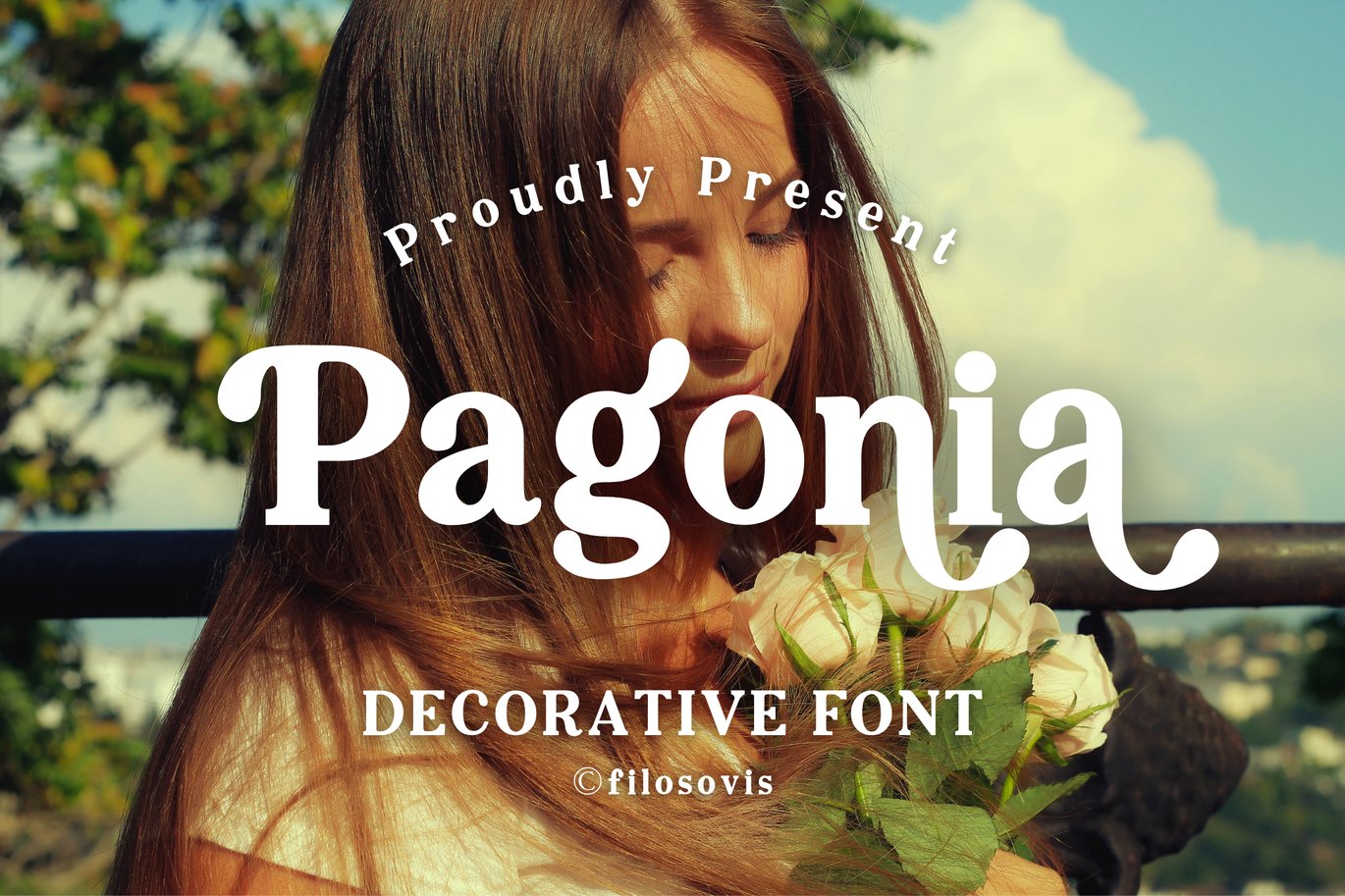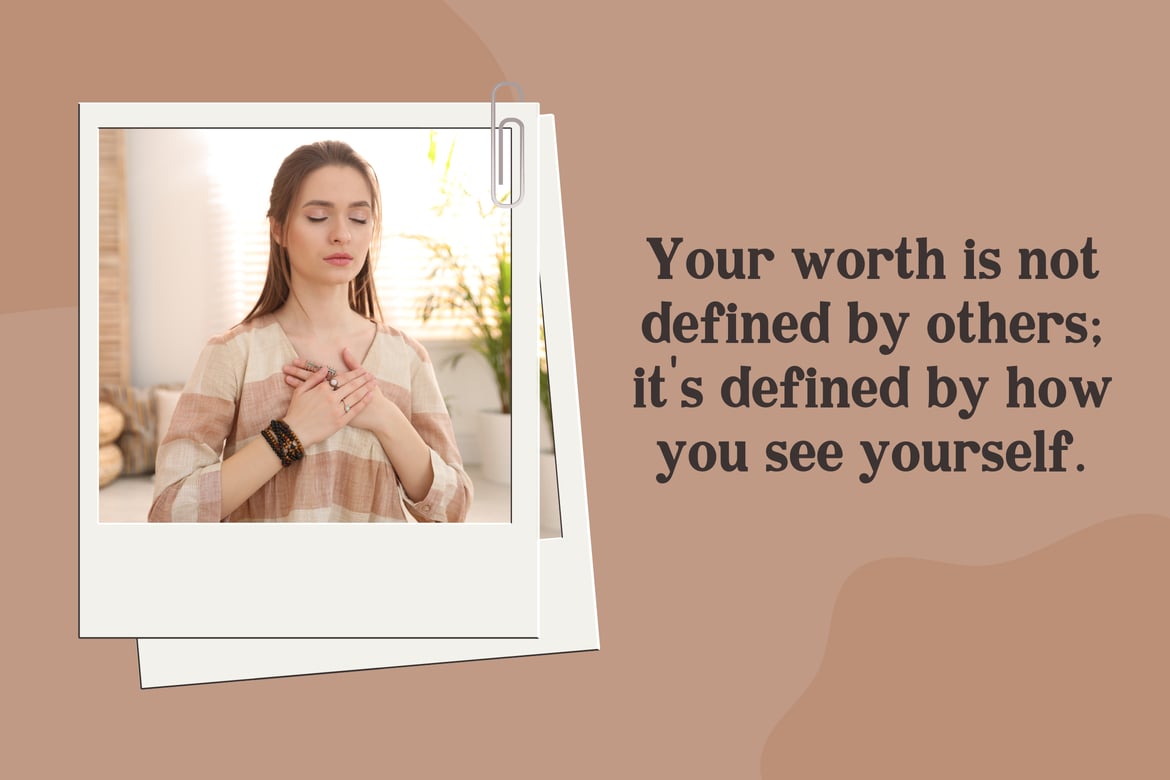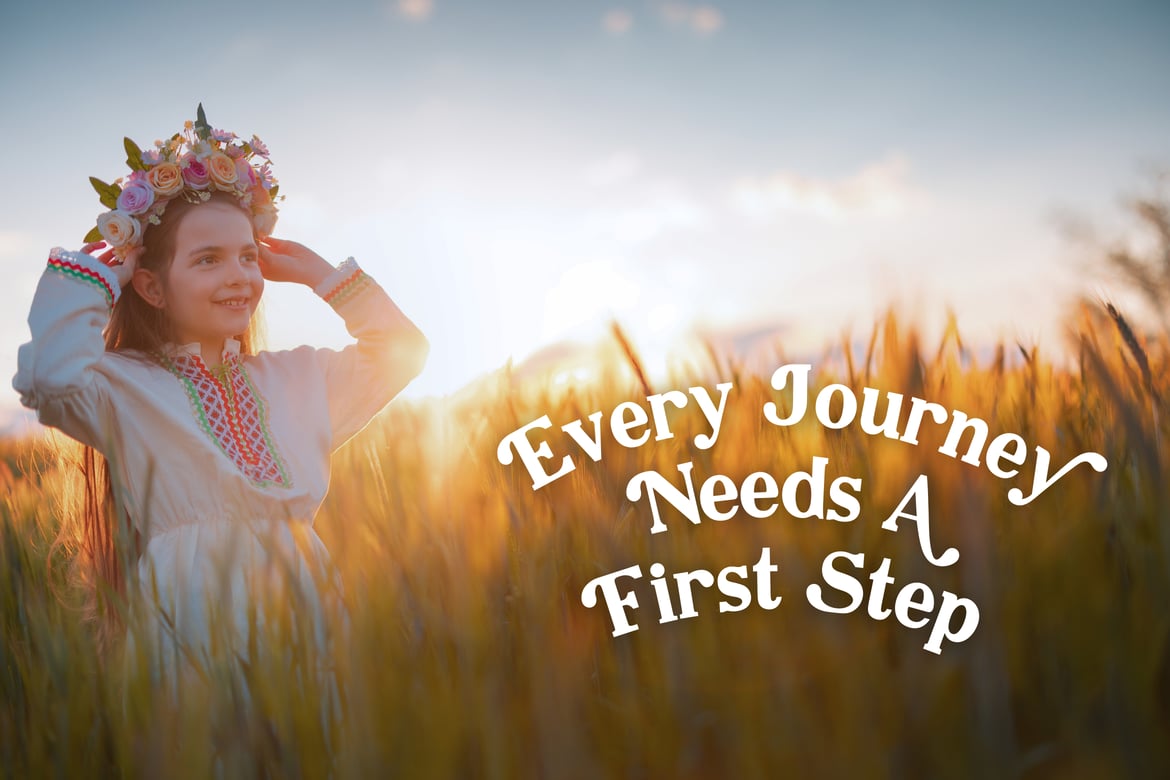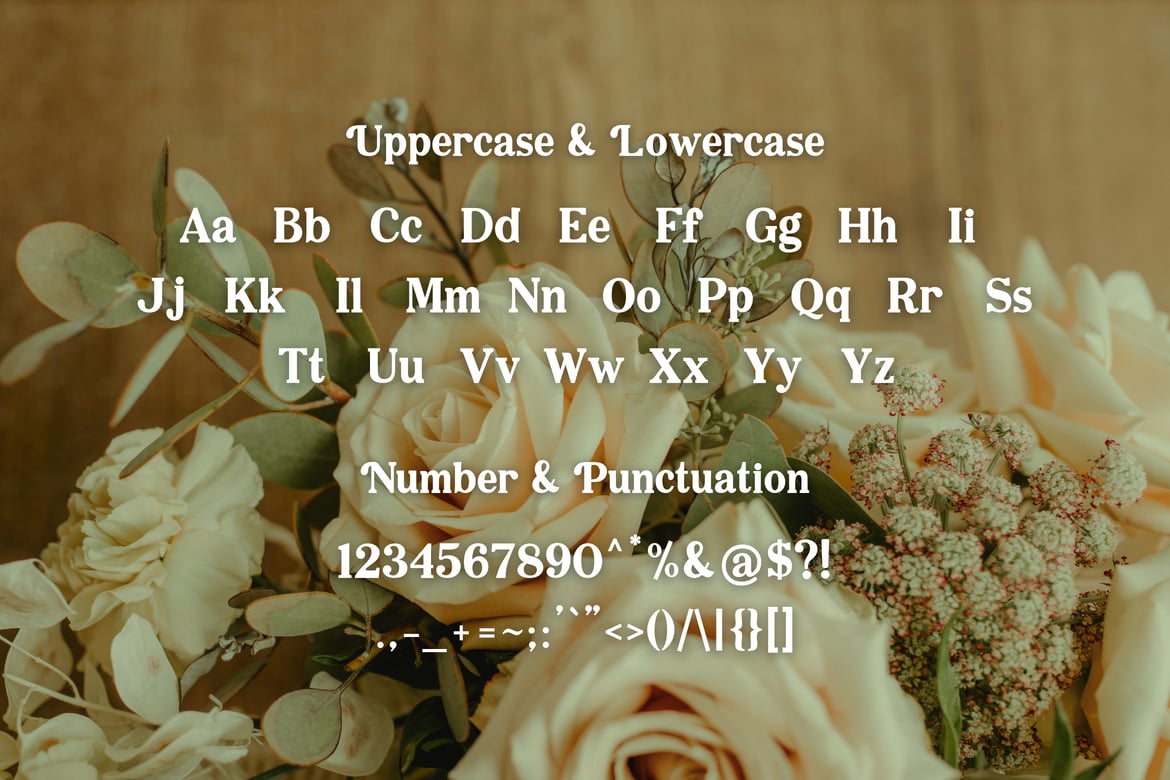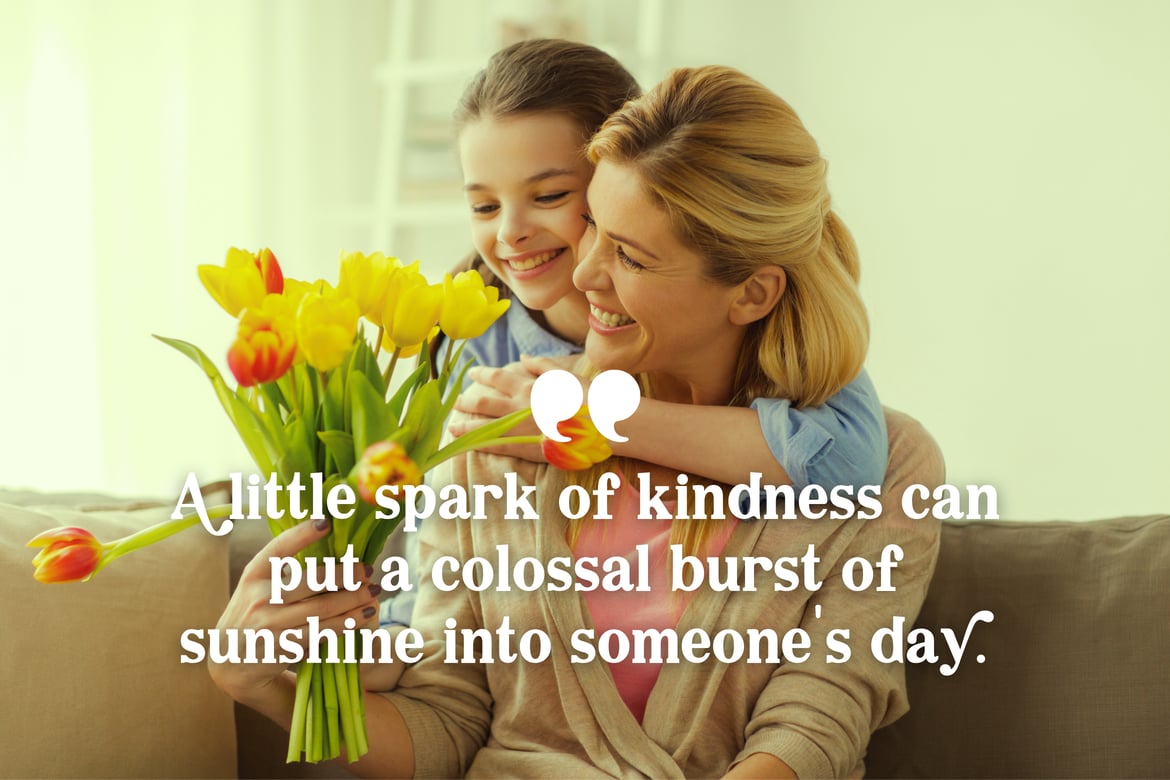
Pagonia | Decorative Font
Description
For your creative project, use the Pagonia Font-themed decorative font. decorative font is appropriate for every kind of design you produce, including greeting cards, posters, logos, and branding.